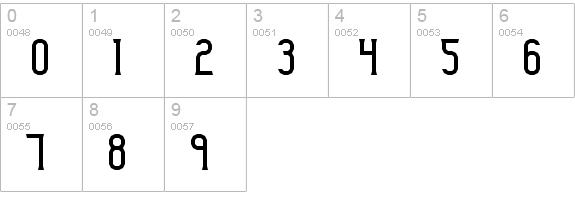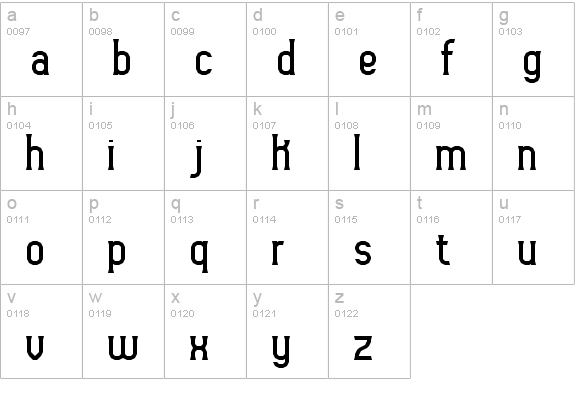
Gyneric BRK Font Details
Gyneric BRK font is a modern and stylish typeface that is perfect for a wide range of design projects. This versatile font features clean lines and a bold, eye-catching design that will make your text stand out. Whether you are creating a logo, poster, or website, Gyneric BRK font is sure to make a statement. The best part about Gyneric BRK font is that it is completely free to download. You can easily access this font at FontsMarket.com and start using it in your projects right away. With its sleek and contemporary aesthetic, Gyneric BRK font is a must-have for any designer looking to add a touch of sophistication to their work. Download it now and elevate your designs to the next level!